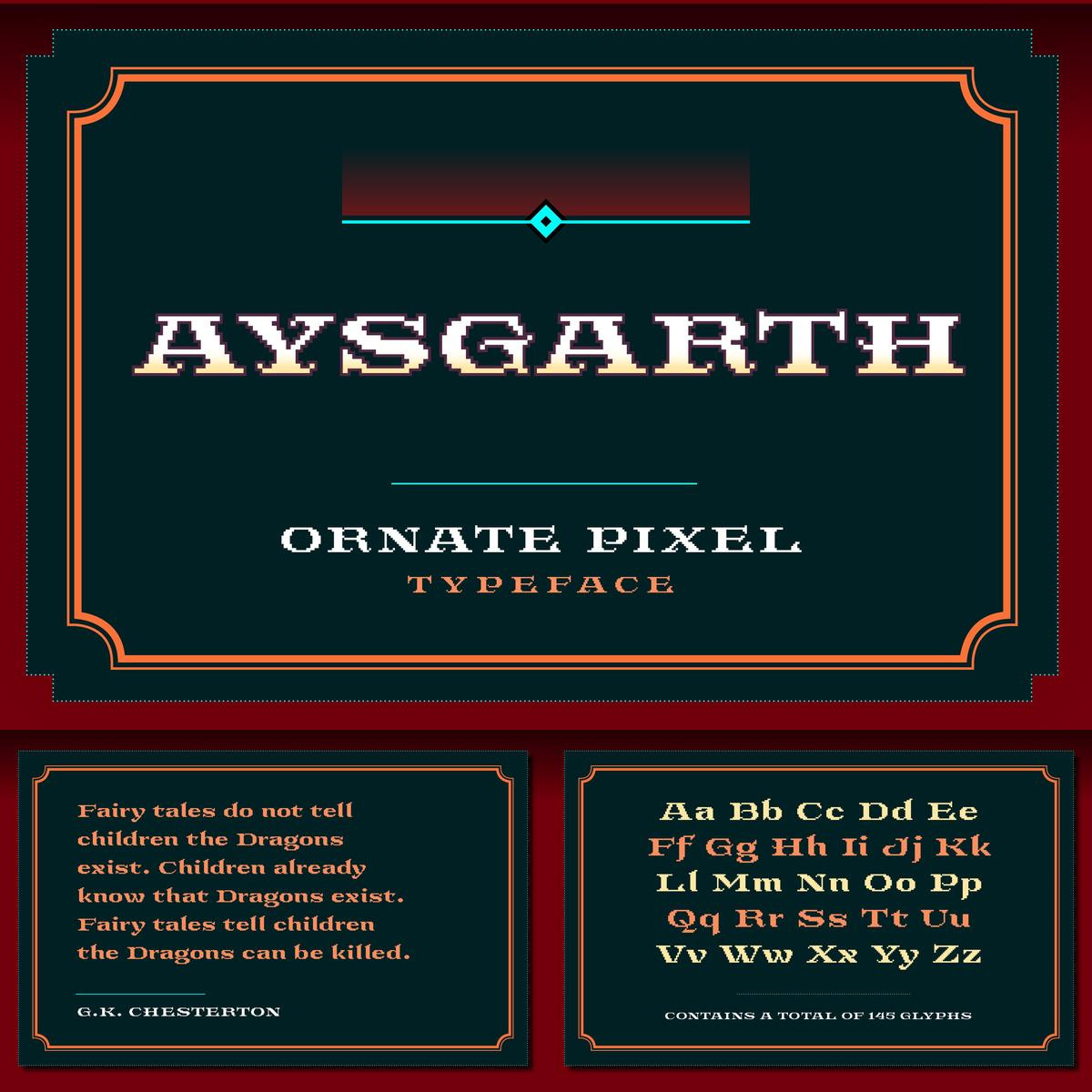
**SB Aysgarth** is an ornate pixel font designed as a typeface for vintage style or fantasy themed games. It has alternative characters for some letters. ---